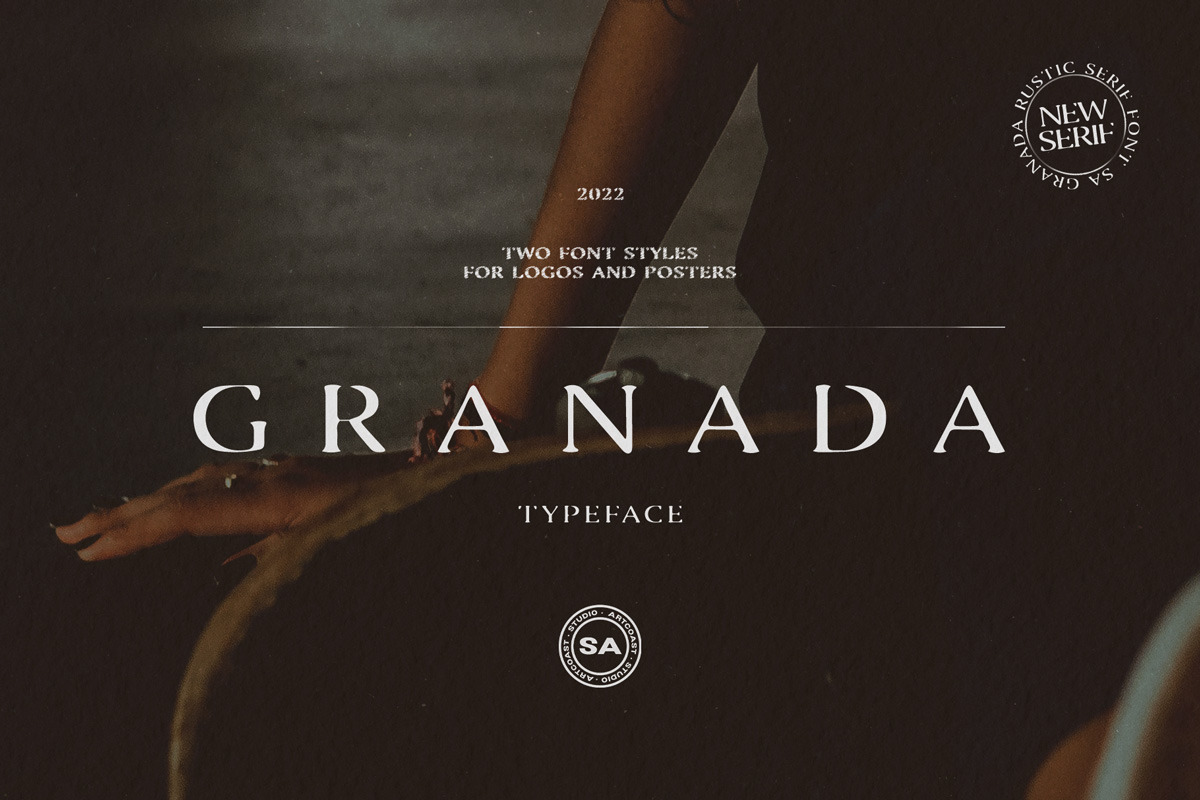
Granada Vintage Serif Font Family
Granada is an elegant vintage serif display family created for refined, atmospheric typography. High-contrast letterforms and graceful details give it a classic editorial presence, while the companion textured style adds an expressive aged-print finish.
Two coordinated styles: Regular and Lines
Uppercase and lowercase Latin letters
Numerals and punctuation
Use the clean Regular style for polished logos, magazine titles, fashion branding, invitations, packaging, and elegant wordmarks. Switch to the textured Lines style for vintage posters, album artwork, café branding, editorial headlines, and designs that need a tactile printed character.